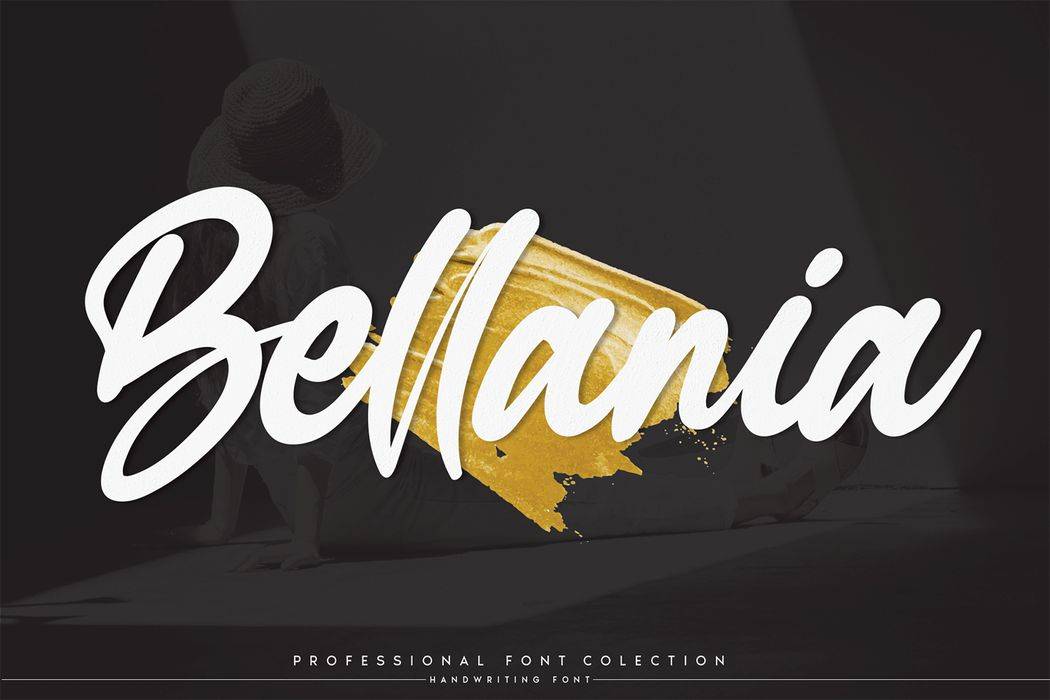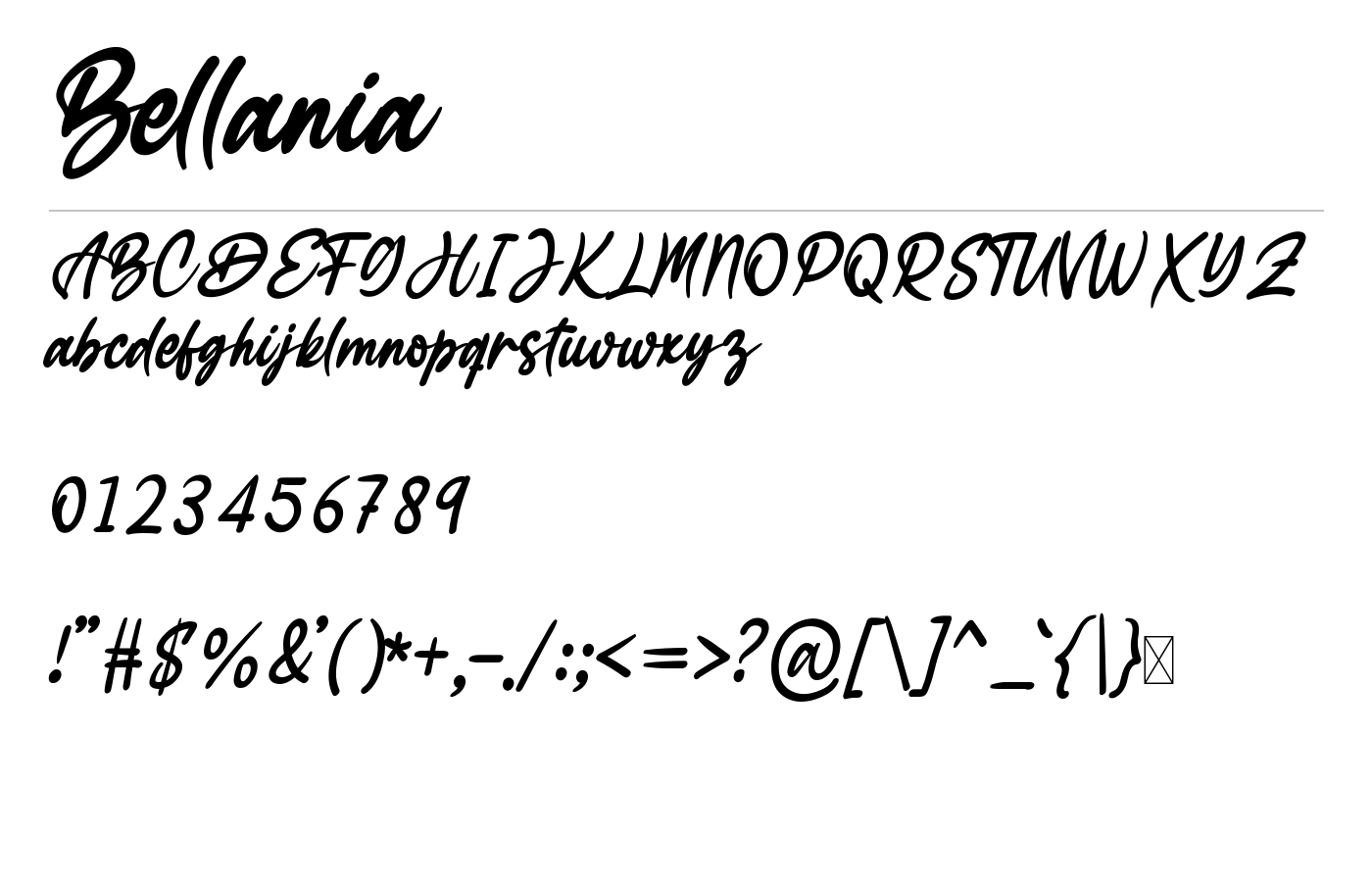
Bellania is a lively script font that features smooth, flowing strokes with a natural handwritten feel. Its medium weight and slightly condensed form make it elegant yet approachable, perfect for adding a personal and stylish touch to invitations, branding, and creative headlines. This font's playful character and clear legibility suit casual, artistic, and feminine designs beautifully.
Bellania Font
About Bellania Font